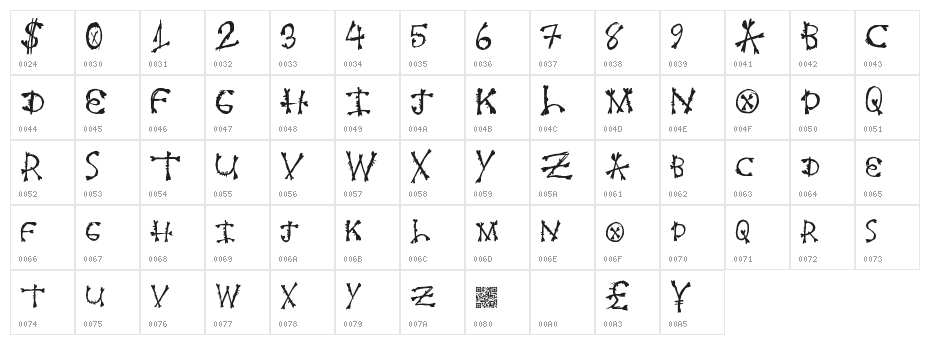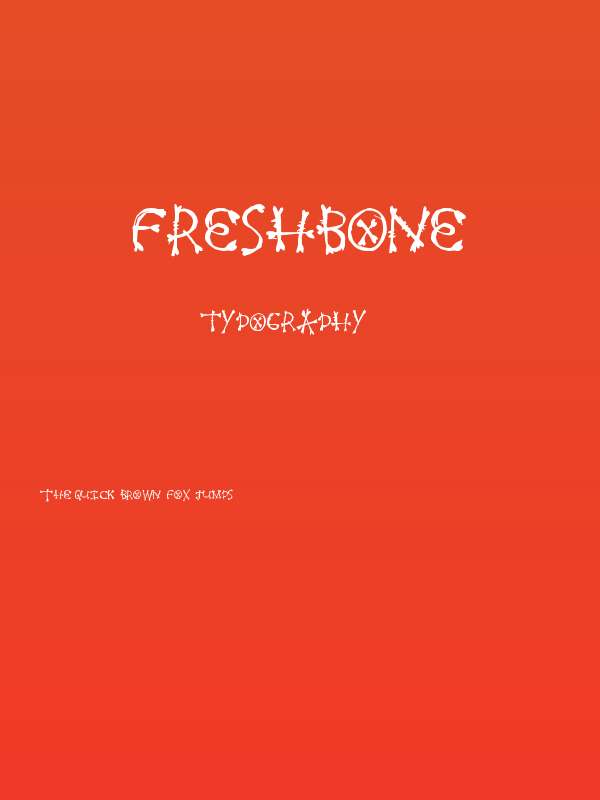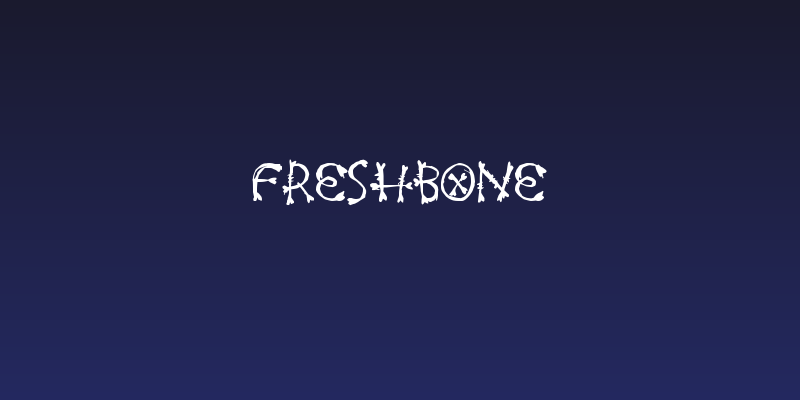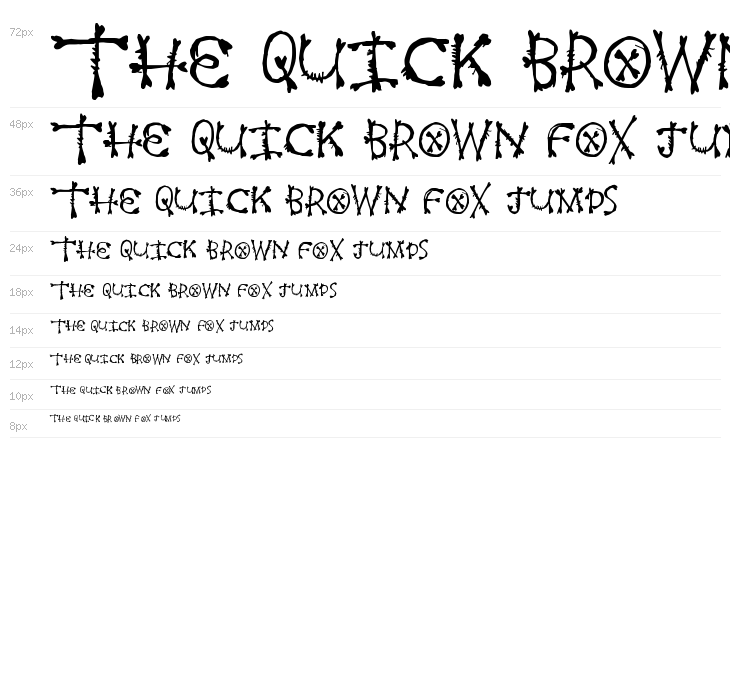
FreshBone Font
FreshBone Description
This font features a unique and edgy design, reminiscent of jagged bones or branches. Each character is crafted with irregular, sharp edges and varying thickness, giving it a rugged and raw appearance. The uppercase and lowercase letters maintain a consistent style, with the uppercase being slightly more pronounced. Numbers and special characters follow the same aesthetic, ensuring a cohesive look across all elements. The font's distinct style makes it suitable for projects that require a bold and unconventional look, such as horror-themed designs, Halloween invitations, or edgy branding materials. Its decorative nature is eye-catching and memorable, making it ideal for headlines or logos where impact is crucial.
| Proposed Projects | Ideal for horror-themed designs, Halloween invitations, edgy branding, and impactful headlines. |